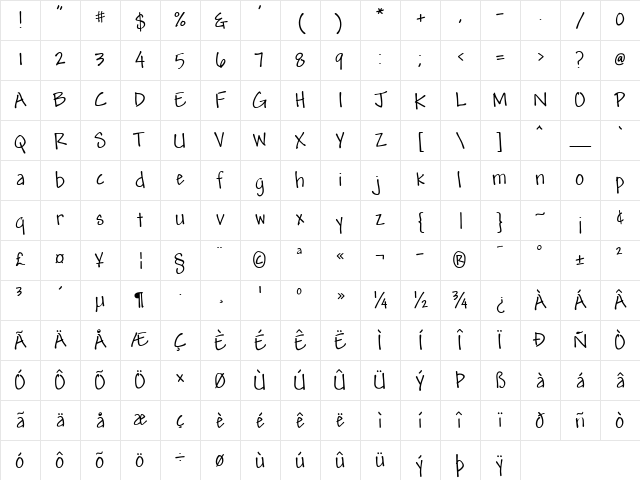
Andy Regular
Andy Family
Complete Andy Regular glyph index. Displaying only characters natively supported by Andy Regular font.
Design Context for Andy
Andy is a composed and adaptable typeface that performs quietly and consistently across a wide range of design contexts.